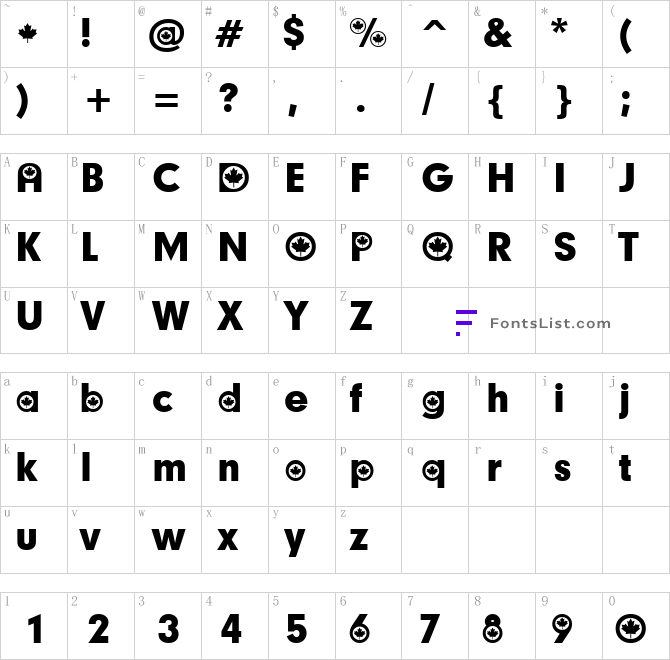
- Font Name:Canadian Participants
Canadian-Participants.ttf is a very beautiful artistic font, Canadian-Participants.ttf is widely used in the design and printing of various books and pictures,Canadian-Participants.ttf has a strong visual impact,Canadian-Participants.ttf is a commonly used font in newspapers, magazines and books, and is used in posters, e-commerce Poster design, store design, logo design, font design and other fields.Canadian-Participants.